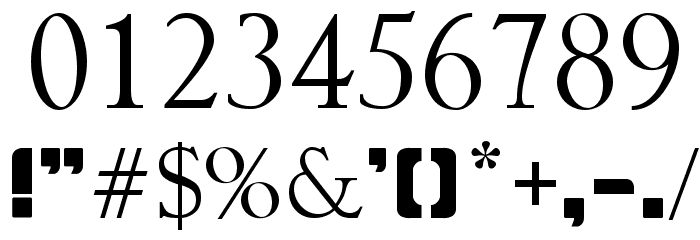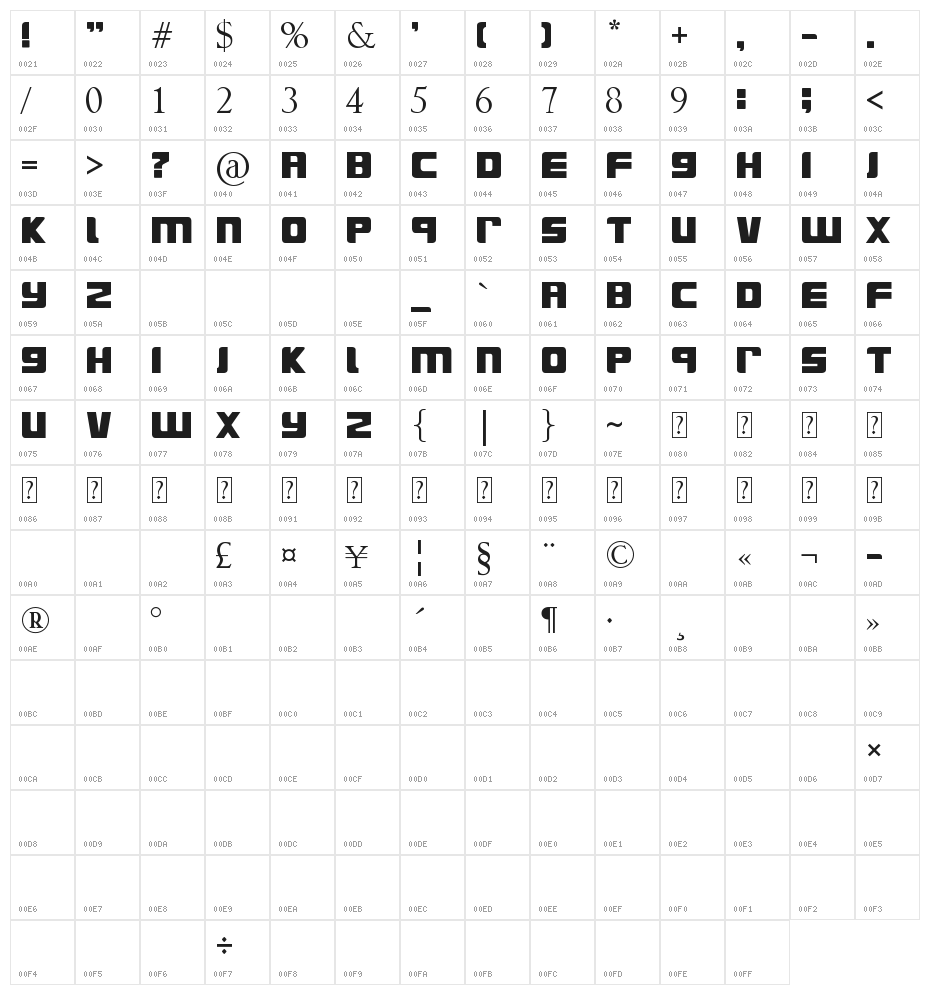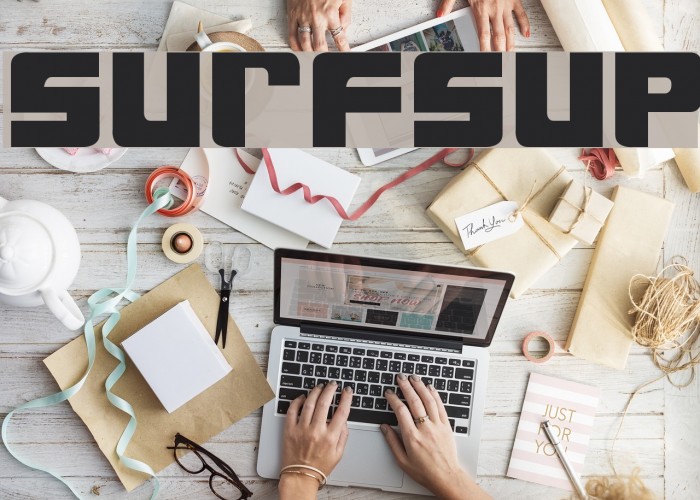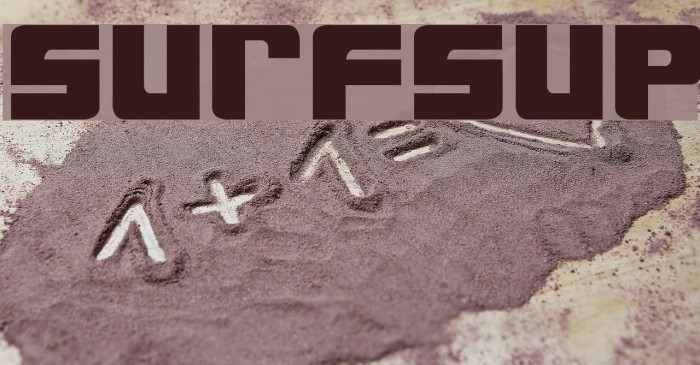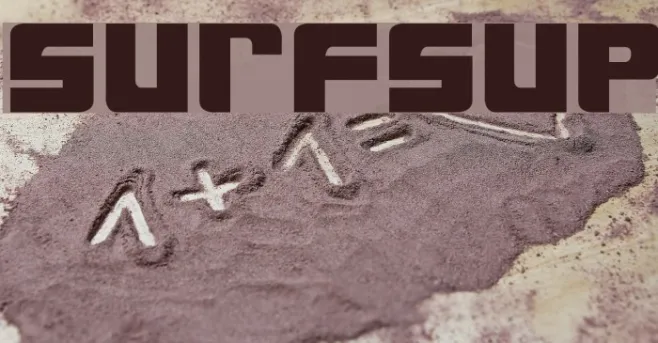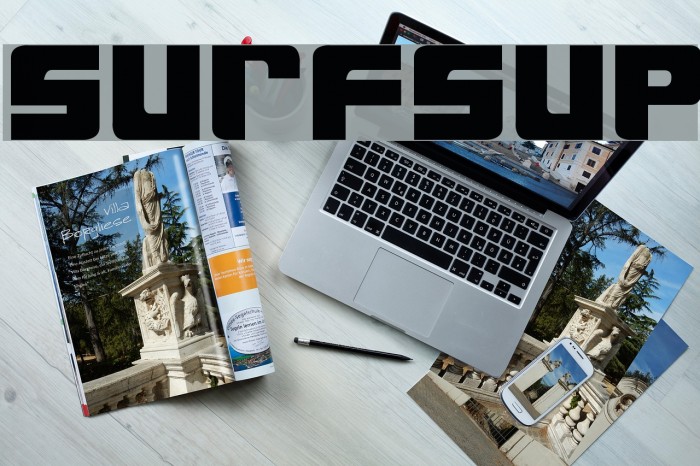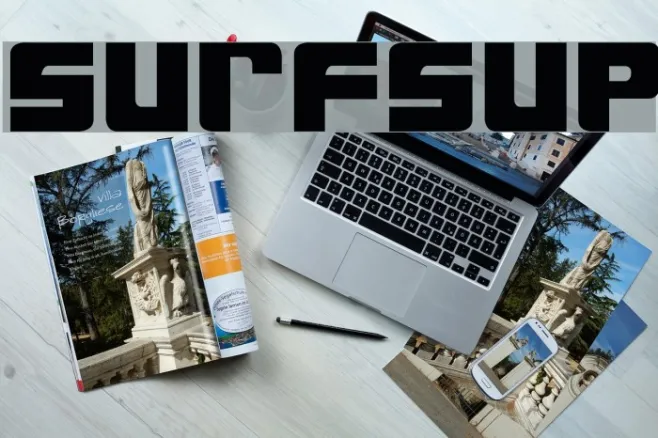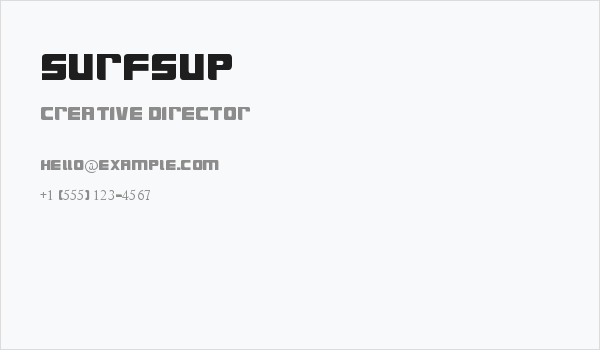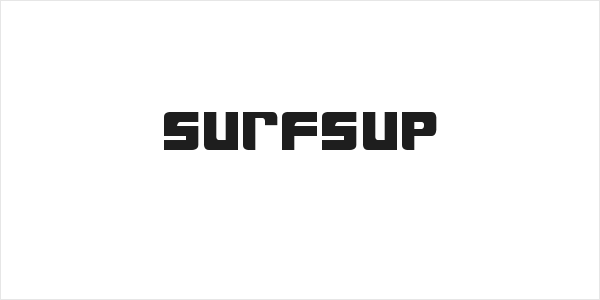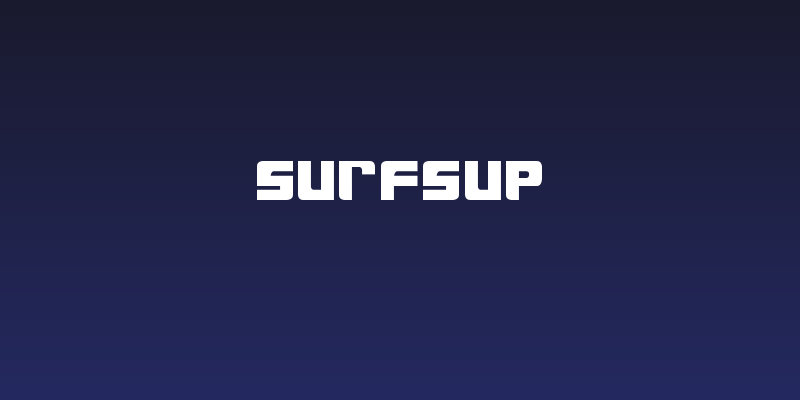
SurfsUp Font
SurfsUp Description
This font features a bold and geometric design with a modern flair. The uppercase letters are characterized by their blocky and angular shapes, giving a strong and impactful appearance. The lowercase letters maintain a consistent style, complementing the uppercase with similar geometric forms. The numerals are sleek and slightly more refined, offering a contrast to the boldness of the letters. Special characters are designed to match the overall aesthetic, ensuring a cohesive look across all elements. This font is ideal for projects that require a contemporary and assertive visual presence.
| Proposed Projects | Ideal for branding, posters, headlines, and any design needing a strong, modern aesthetic. |